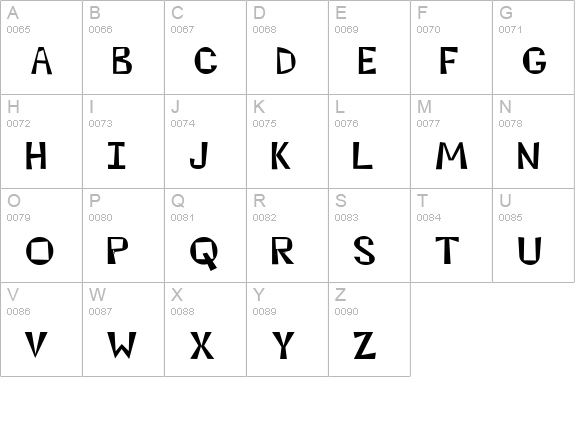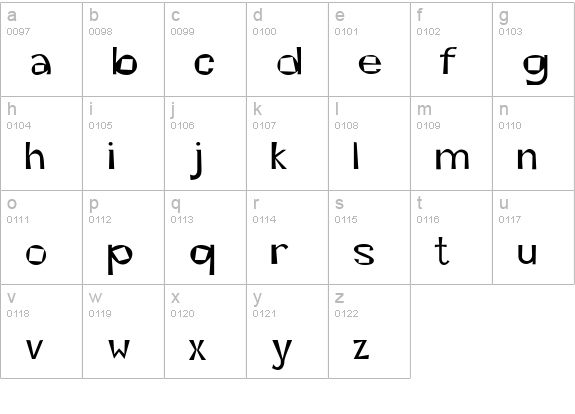
Kwirky Font Details
Kwirky font is a whimsical and playful typeface that adds a fun and quirky touch to any design project. With its unique and distinctive letterforms, Kwirky font is perfect for adding a touch of personality to your designs. This font is freely available to download at FontsMarket.com, making it easy for anyone to access and use in their creative projects. Whether you're working on a poster, logo, or social media graphics, Kwirky font will surely make your designs stand out with its charming and unconventional style. Let your imagination run wild with Kwirky font and bring a sense of fun and originality to your designs.